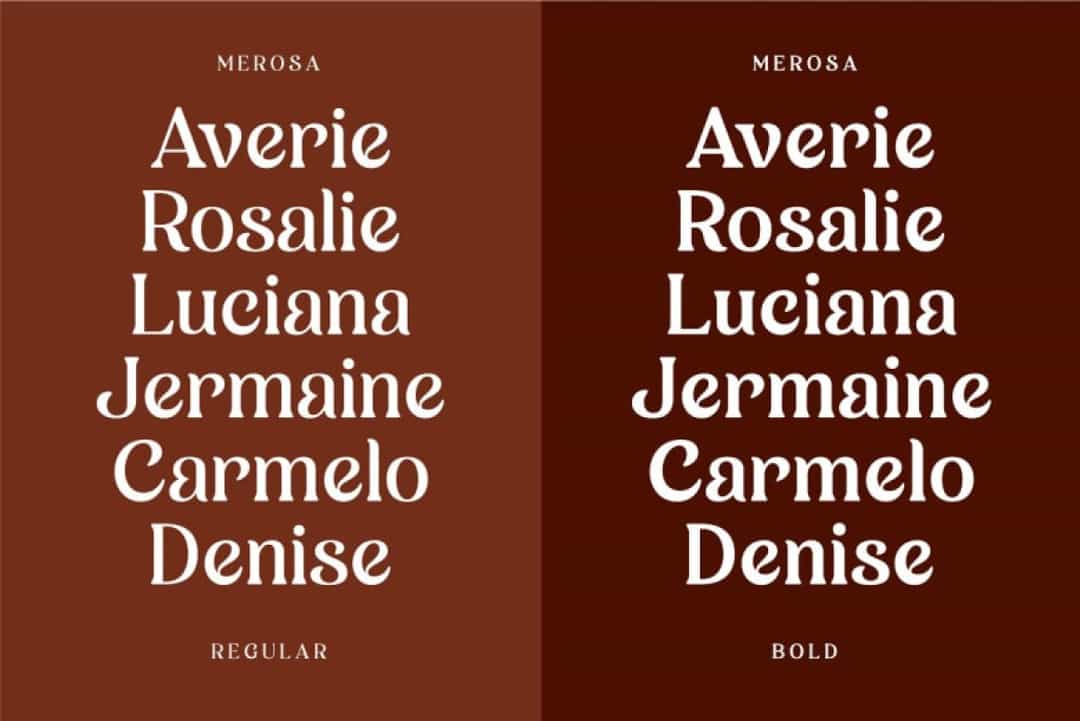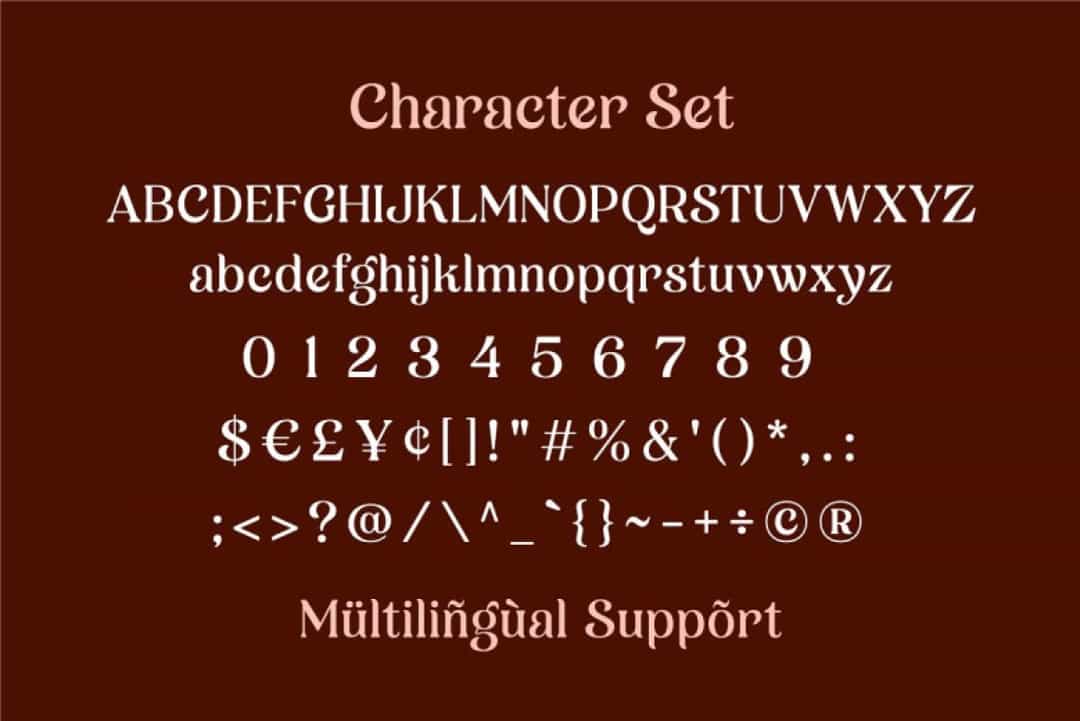
Merosa is an experimental display serif font I designed to accentuate fashion design. However, its versatile use extends far beyond fashion. Labels, logos, invitations publications books wedding, christmas cards packaging stationery books labels any form of advertisement and many other uses can benefit from using Merosa font.